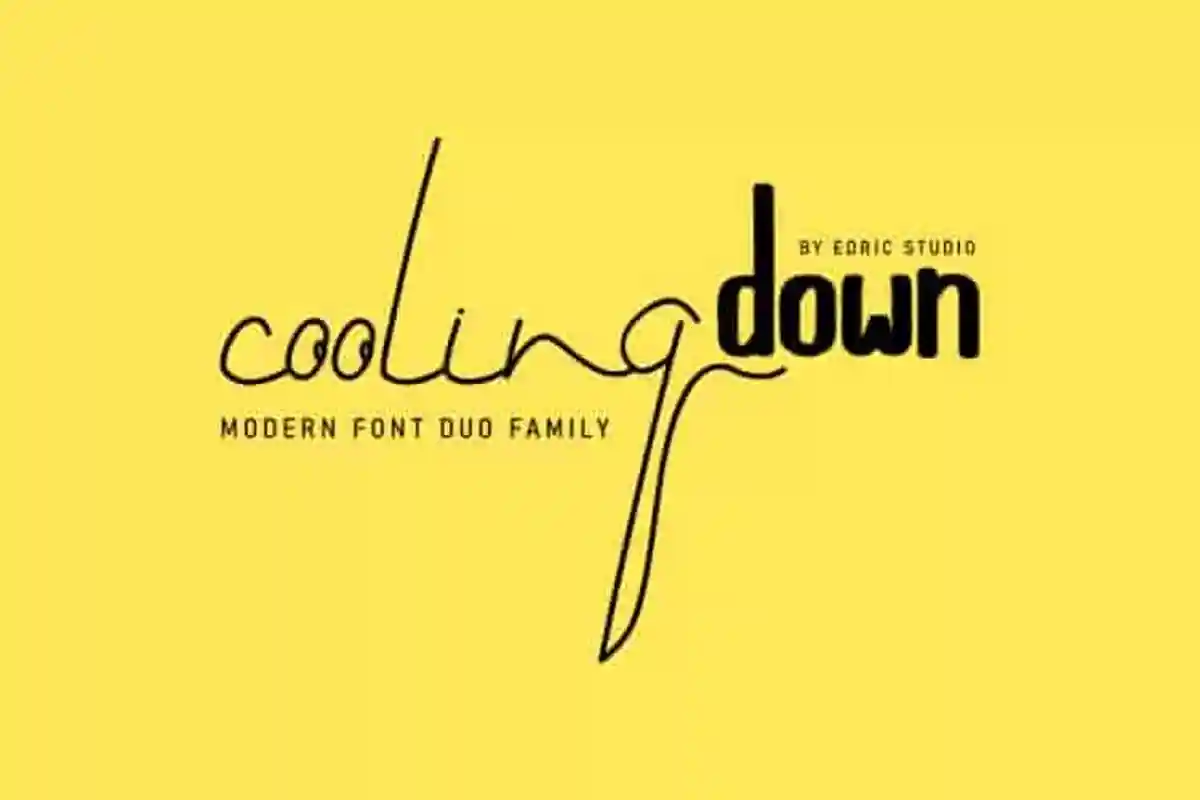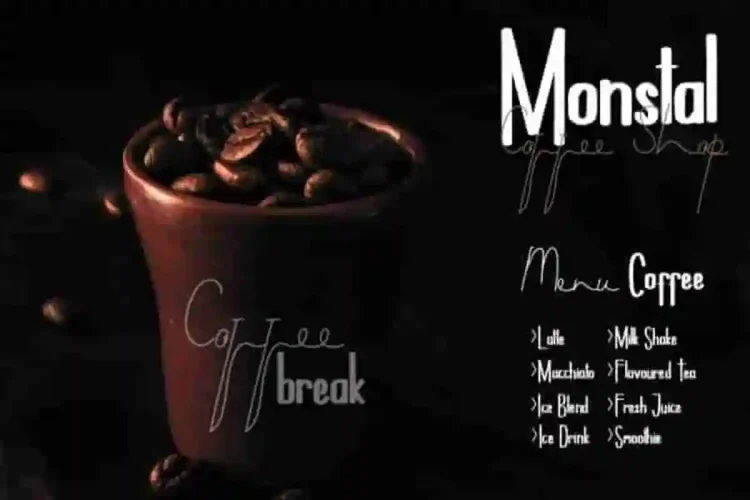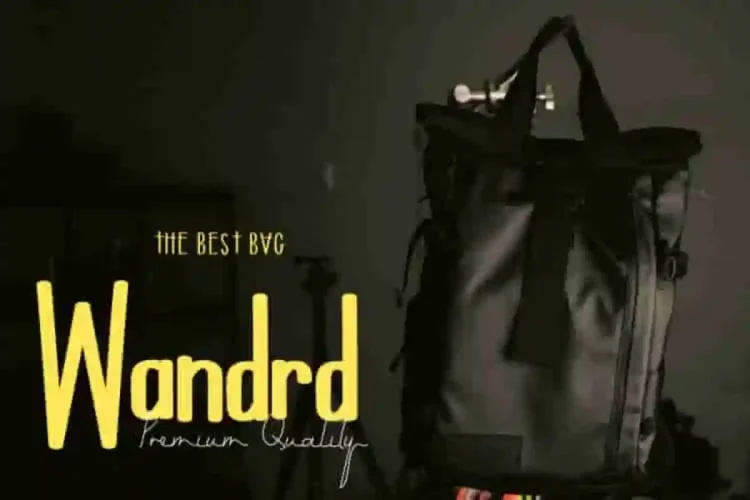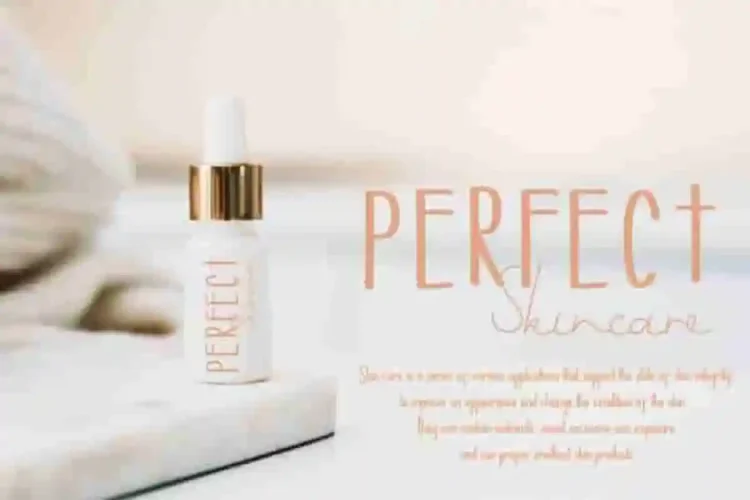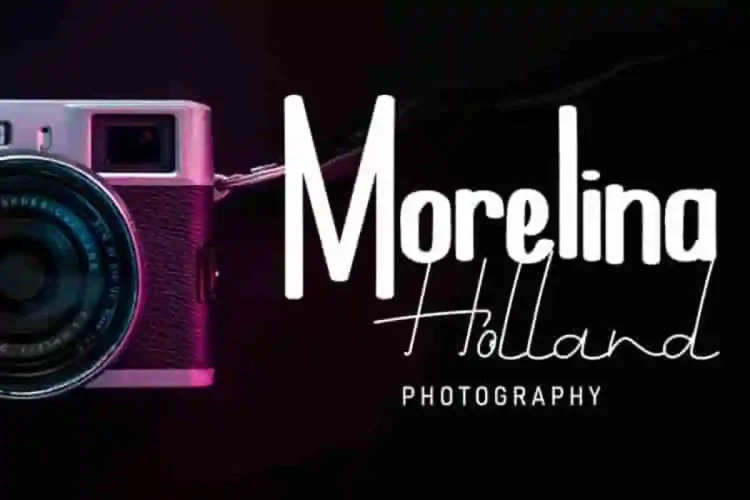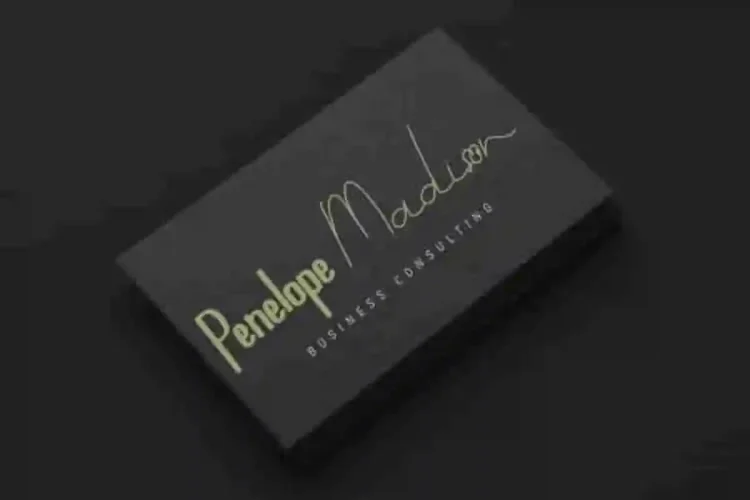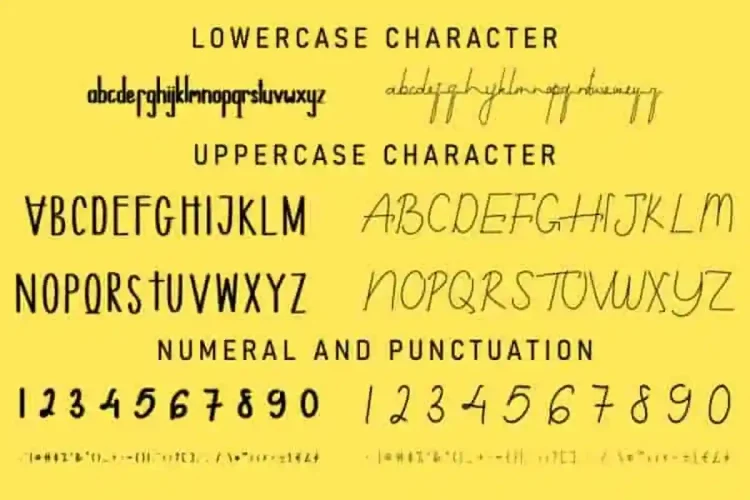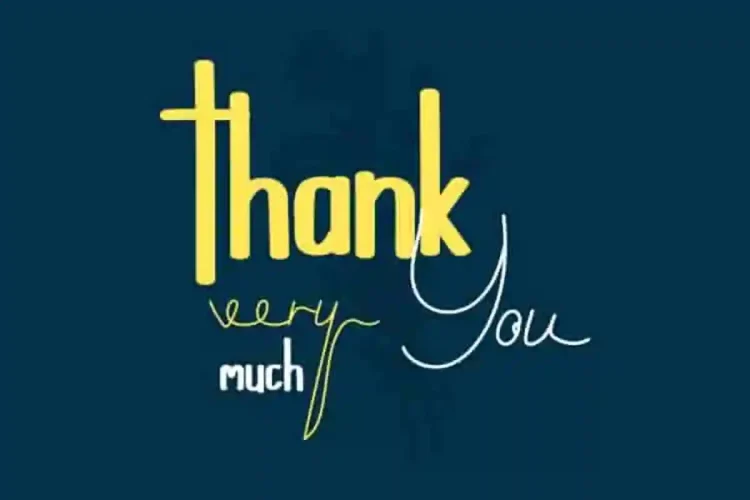
Cooling Down Calligraphy Font Duo
Cooling Down Calligraphy Font Duo is a font family with two different unique styles. It was handcrafted from our Studio here in, Indonesia. The designers of these fonts are Saila and Sarah.
Cooling Down Calligraphy Font Duo comes with two different styles : Sans Display and signature font. The characters are elegant,  sophisticated, stylish and classic style. It has a stunning characters set, perfectly managed with well spaced and kerning.
Cooling Down Font will be great for any projects  including : branding and logo (with extended license), stationery, business card, signage, flyer, brochure etc. Almost all industries will be match for this typeface: wedding, events, real estate, architect, law firm, florist, gardening, makeup artist, travel, hotel, musician etc.